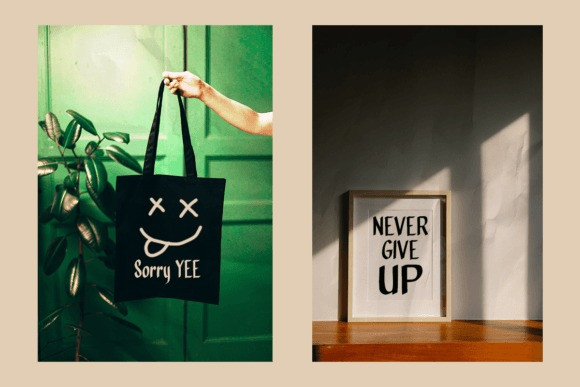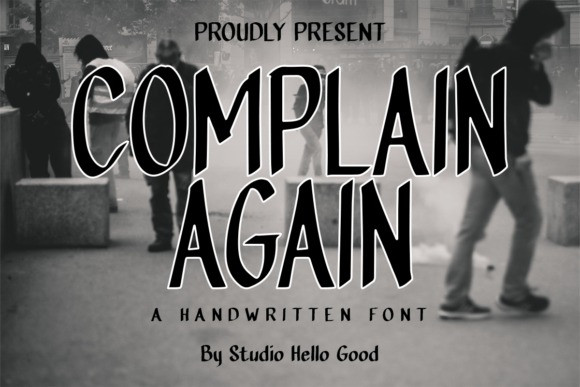
Complain Again Font
Complain Again Font – a playful and expressive font that combines the whimsy of comics with the charm of handwritten script. With its quirky personality and comic book-inspired aesthetic, Complain Again injects a sense of fun and spontaneity into any design project.
But don’t let its whimsical appearance fool you – Complain Again is versatile enough to handle a wide range of design tasks. Whether you’re creating a quirky comic strip, designing a bold poster, or adding a touch of personality to your branding, this font is sure to make your message pop.